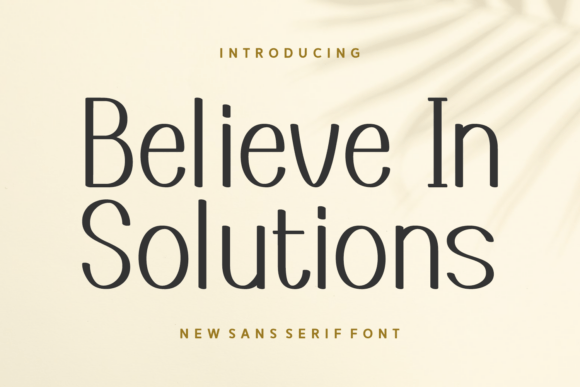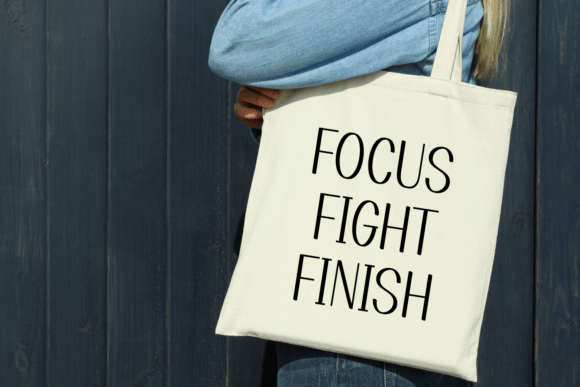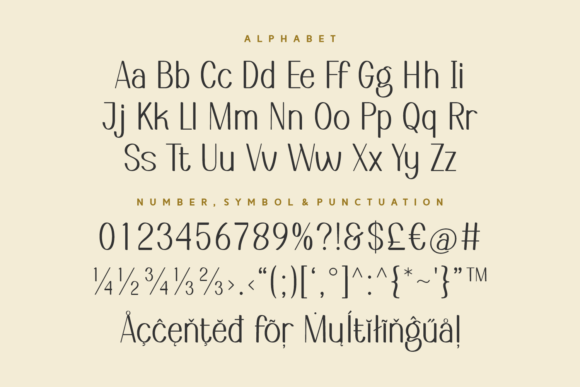
Believe in Solutions Font
Believe In Solutions is a refined sans serif font that blends modern minimalism with a touch of warmth. Its tall x-height and smooth rounded corners make it ideal for branding, editorial layouts, and wellness or lifestyle projects. The subtle elegance of this typeface allows it to convey clarity and confidence without sacrificing approachability.